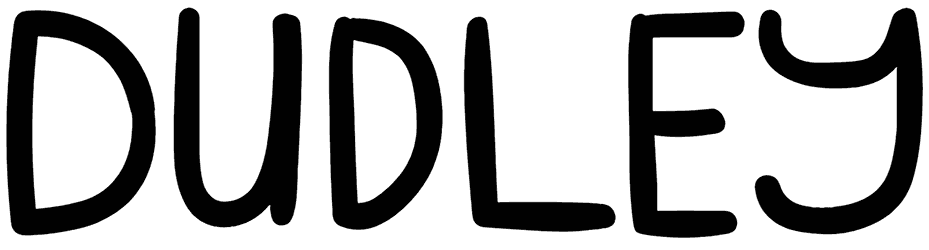
Dudley Font
Dudley is great for handwritten designs on social media or infographics, and can lend itself to a variety of projects. This script font has a childish style that can bring your branding to life with a unique human essence.
So if you are looking for a special way to differentiate a company in the real world or online, and you don’t need lowercase letters, Dudley letters are original and can help you achieve this goal.